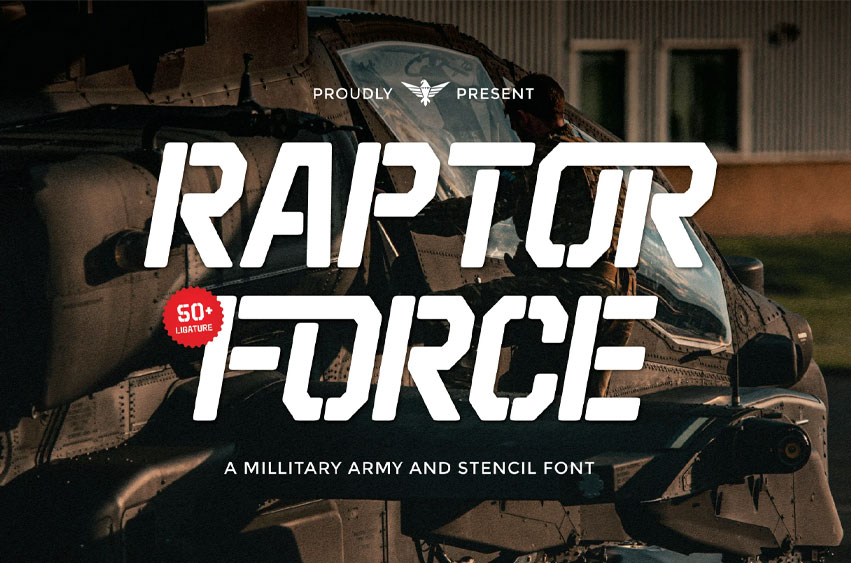
Raptor Force Font
Raptor Force Font is the bold, battle-ready typeface designed for impact, strength, and a commanding presence.
Give your designs the power they deserve: this font brings military-grade style to logos, posters, branding, video games, apparel designs, merchandise, social media, and any project that demands a rugged, authoritative, and modern look. Featuring strong lines, sharp edges, stencil-inspired geometry, and high readability even at large sizes, Raptor Force commands attention while remaining versatile.
Ideal for logos, headlines, posters, flyers, merchandise, gaming graphics, military / tactical branding, film & video titles, social media banners, and more — this font transforms ordinary text into a powerful visual statement.